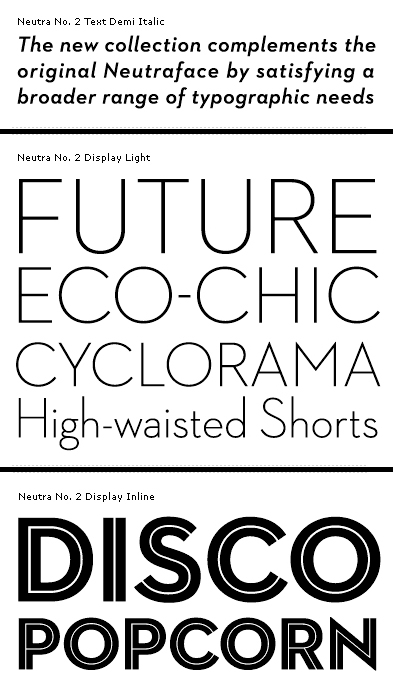
Font Fetish: Neutraface No. 2
House Industries updates a modern classic.
Back in 2002, House Industries and Christian Schwartz released the Neutraface family. Late last year, Neutraface No. 2 debuted. House says that the new type family is a brand new thang: a "completely reconceptualized, redrawn, and re-engineered version" of the original.
Although No. 2 is missing some of the quirks that I loved in the original Neutraface, No. 2 seems more applicable to a wider variety of design situations.